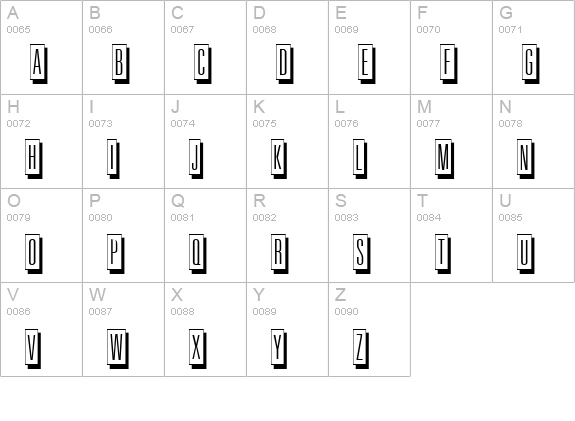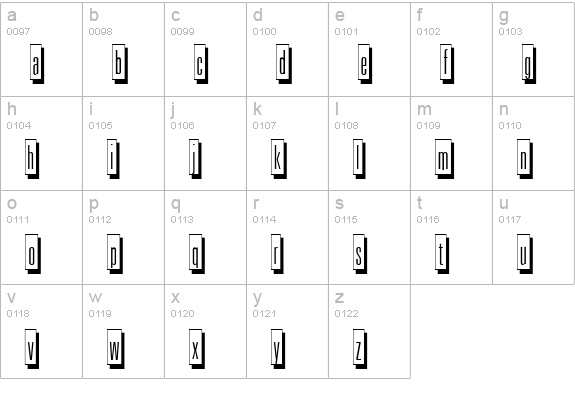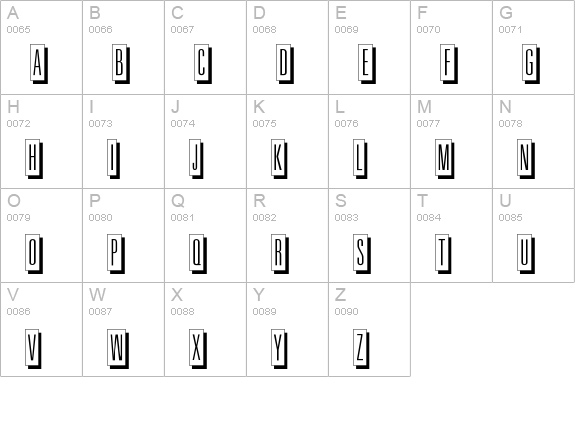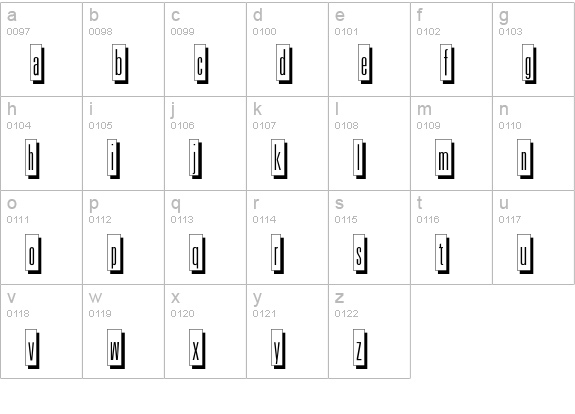
Image Regular Font Details
Image Regular is the standard, neutral variant in the Image typeface family \xE2\x80\x94 well suited to general body text, paragraphs, and standard typographic work.
Image Regular font is a visually appealing typeface that is perfect for adding a touch of elegance and sophistication to any project. With its clean lines and balanced proportions, this font is versatile enough to be used in a wide range of design applications, from logos and branding to invitations and headlines. One of the standout features of Image Regular font is its ability to seamlessly blend classic and modern elements, making it suitable for both timeless and contemporary designs. The graceful curves and subtle details of this font create a sense of refinement and professionalism, making it a great choice for businesses and individuals looking to make a lasting impression. What's even better is that Image Regular font is available for free! That's right, you can freely download this font from FontsMarket.com and start using it right away. Whether you're a professional graphic designer or someone who just loves experimenting with typography, having access to high-quality fonts like Image Regular font can greatly enhance your creative endeavors. So why wait? Head over to FontsMarket.com and grab your free download of Image Regular font today. Unleash your creativity and elevate your designs with this stunning typeface.